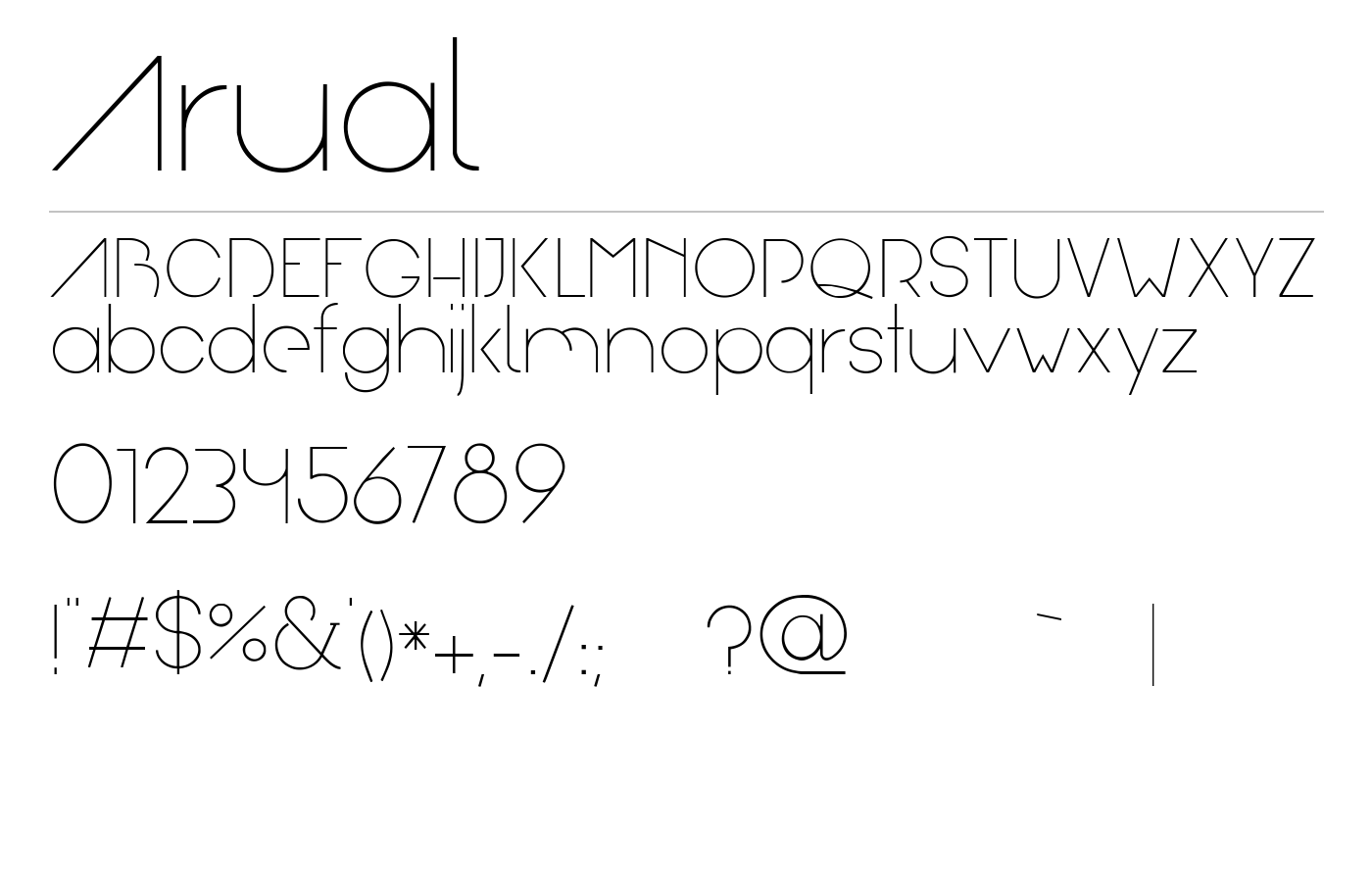
Arual is a sleek, modern sans-serif font characterized by its ultra-thin weight and geometric letterforms that evoke a minimalist, futuristic feel. With its clean lines, high x-height, and unique angles, it works beautifully for contemporary branding, editorial headlines, and stylish digital designs where a sophisticated yet airy aesthetic is desired. This font’s delicate structure makes it a perfect choice for projects seeking elegance with a touch of modern innovation.
Arual Font
About Arual Font